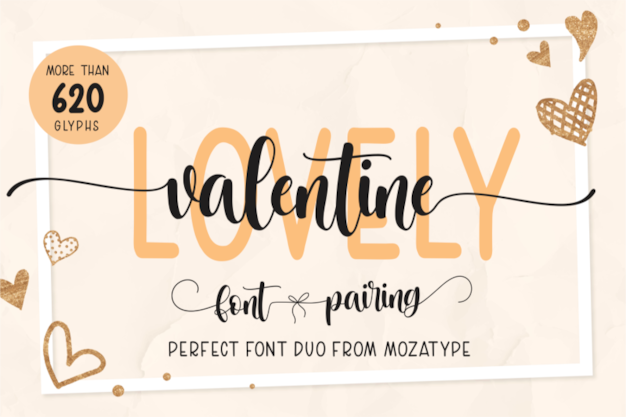
Lovely Valentine
Lovely Valentine Font
Mozatype
Lovely Valentine is a perfect font duo that will add a sophisticated touch to your creations! Download it now and start creating invitation cards, flyers and much more with it!
Lovely Valentine Sans (400)
Lovely Valentine Script (400)